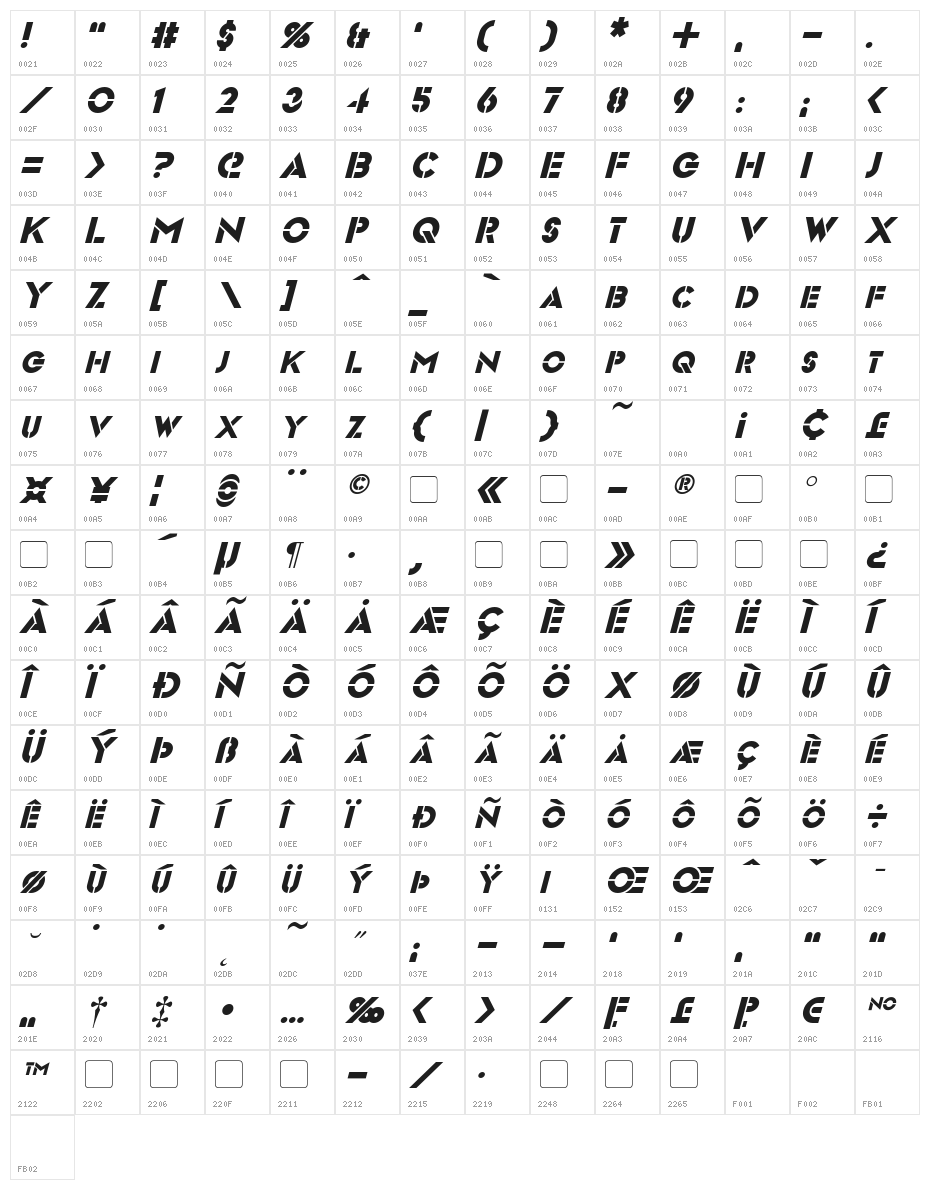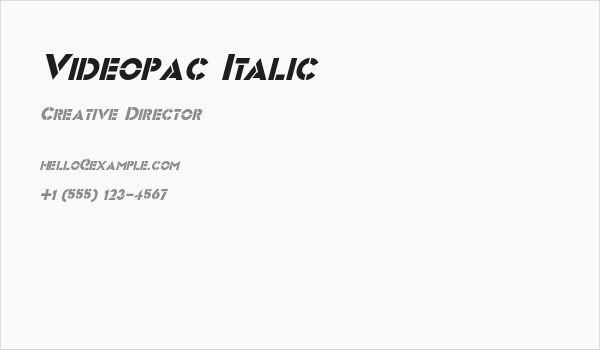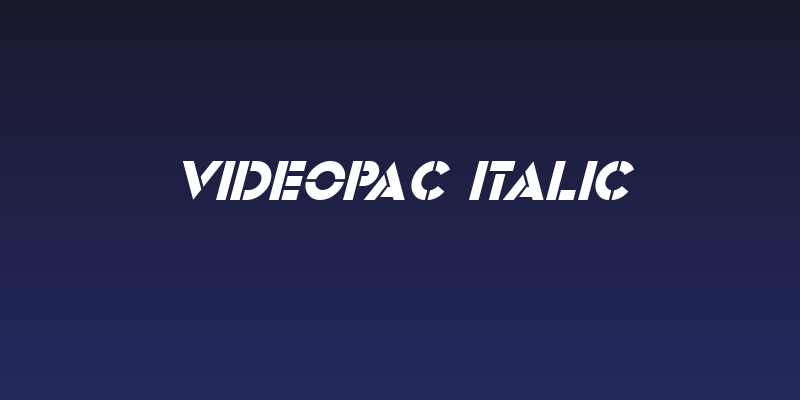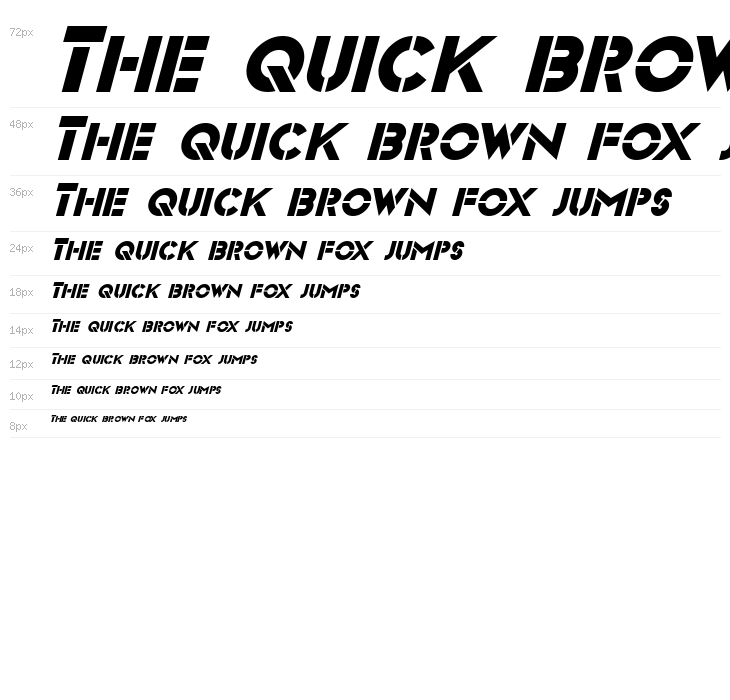
Videopac Italic Font
Videopac Italic Description
This font features a bold, italicized style with a futuristic and geometric aesthetic. The characters are sharply angled, giving a sense of motion and dynamism. Each letter is constructed with solid, thick strokes, and the design incorporates unique cut-out sections that add a distinctive, modern flair. The numbers and special characters follow the same bold and angular design, ensuring consistency across all glyphs. This font is ideal for projects that require a strong, impactful visual presence.